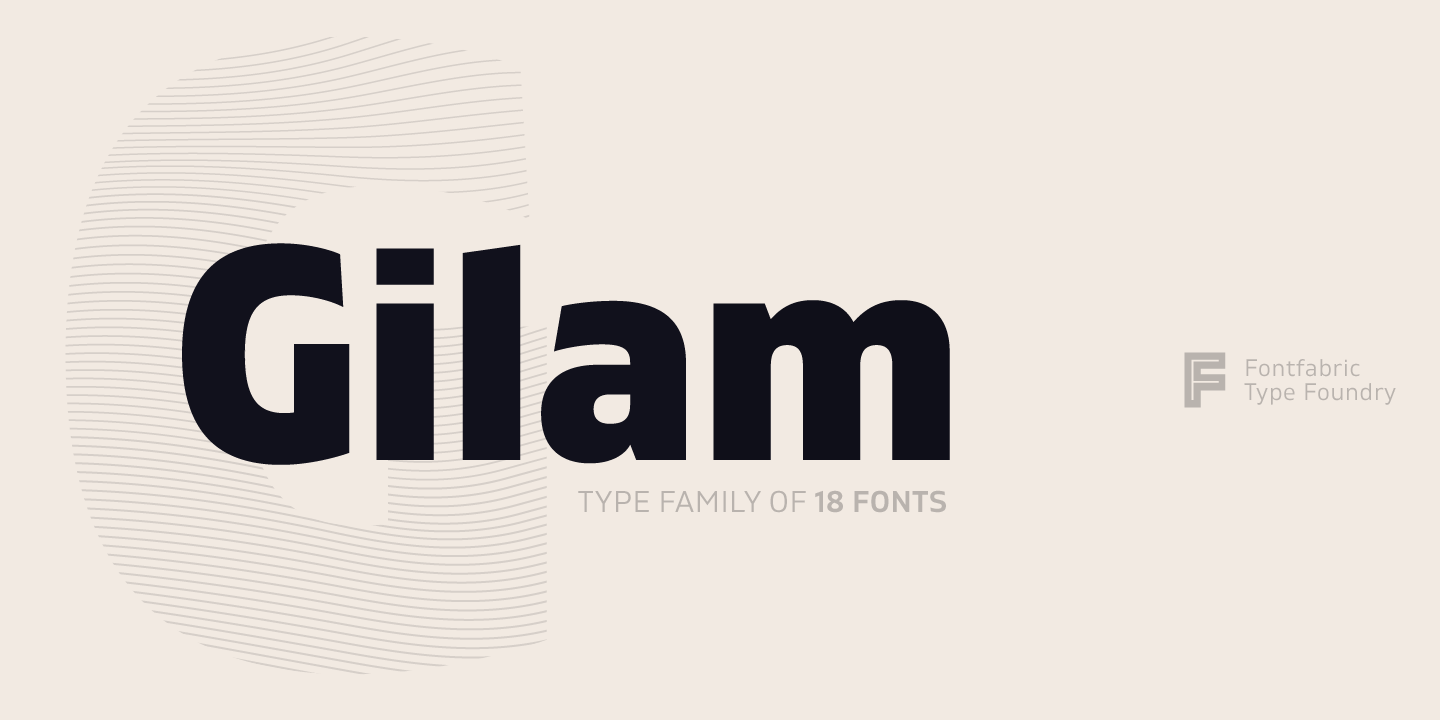
Gilam Font Family
The following is a type family of 18 fonts, it will make you happy. Introducing Gilam! It is designed and shared by Fontfabric. Gilam is a sans serif font with semi-condensed proportion. The typeface was based on the famous DIN but it combines its popular neo-grotesque look with characteristics such the pointed edges in the “W” and “M” and the outward cut terminals which gives a distinctive look to the modern geometric typeface. The complete set of 9 weights plus italics give the designers complete freedom to create. Perfect layouts with blocks of text, headlines, motion graphics, logos, apps, and websites are just part of the intended usage of the versatile typeface.